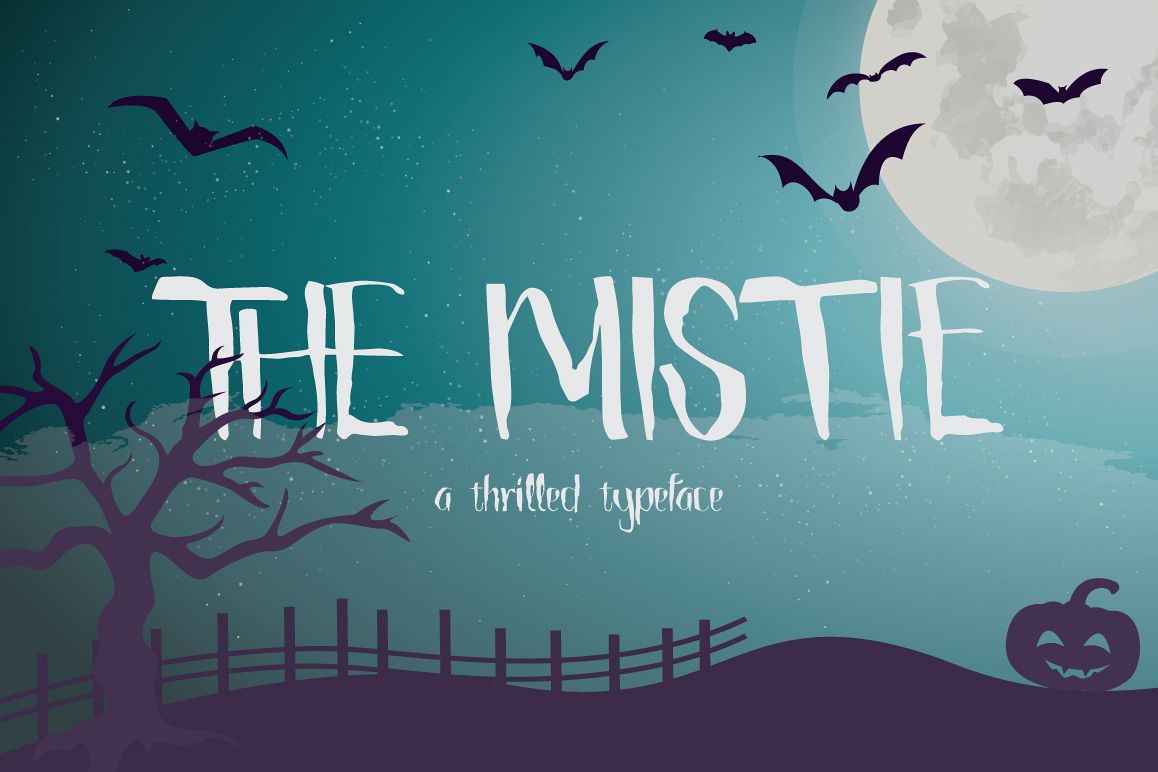
The Mistie Typeface
Introducing "The Mistie Handwriting Typeface" Can be used for various purposes namely headings, signatures, logos, wedding invitations, t-shirts, letterheads, signages, labels, news, posters, badges etc. It is ONLY $9 for a limited time! :) Product Content: The Mistie.otf The Mistie.ttf The Mistie Web Font (eot, svg, woff) Features: Uppercase Lowercase Numeral & Punctuations (Open Type Standard) Ligatures Use a program that supports OpenType features such as Adobe Illustrator CS, Adobe Indesign & CorelDraw X6-X7 to access the full features of this typeface. How-to pdf included in the package. Feel free to contact me for additional supports. Personal and Commercial use are permitted